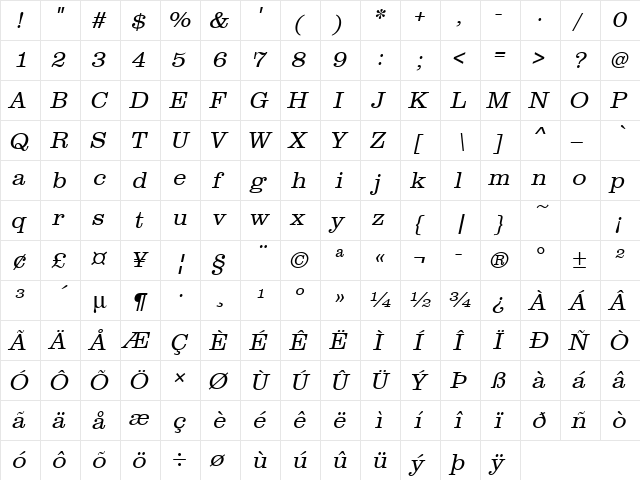
URWClarendonTLig Oblique Font Preview
URWClarendonTLig Oblique
Design Context for URWClarendonTLig Typeface
URWClarendonTLig combines the readability of serif typography with the visual weight of a slab construction, resulting in a typeface that feels both authoritative and approachable. Its italic angle brings a sense of urgency and motion to the letterforms.
Works well in editorial design, news publishing, impactful branding, and poster typography.
Pro Tip: Try URWClarendonTLig set tight in headlines for a classic editorial feel. Its slab serifs create strong horizontal rhythm that anchors a page layout.